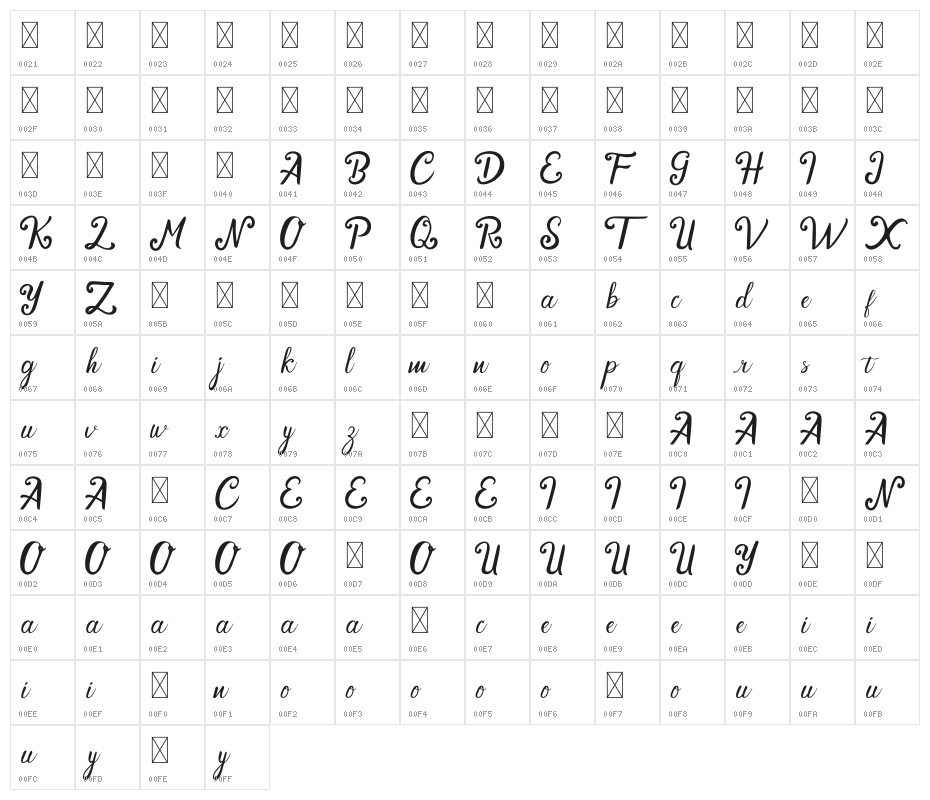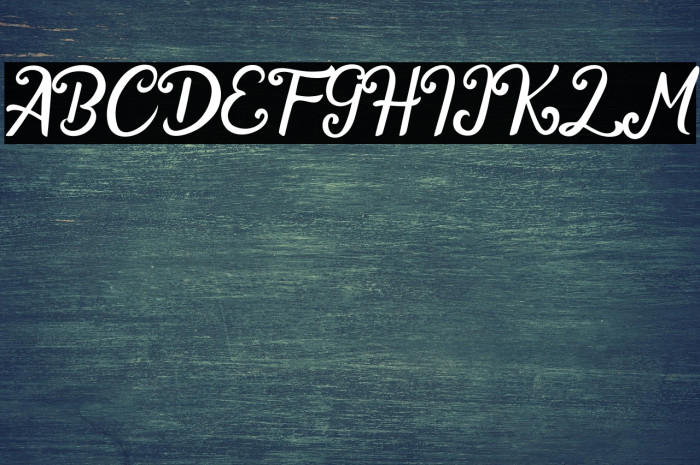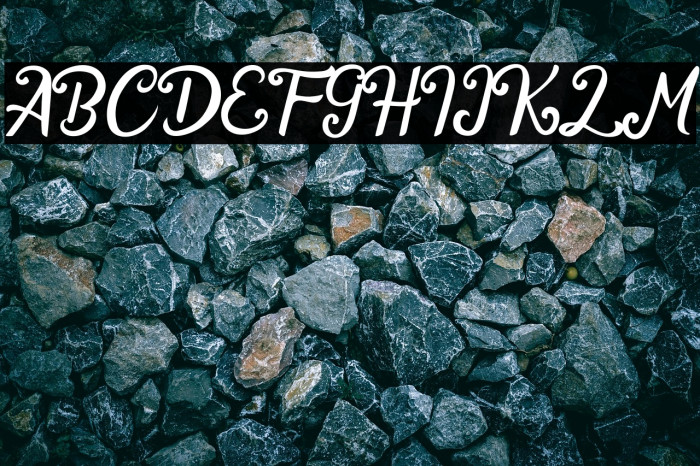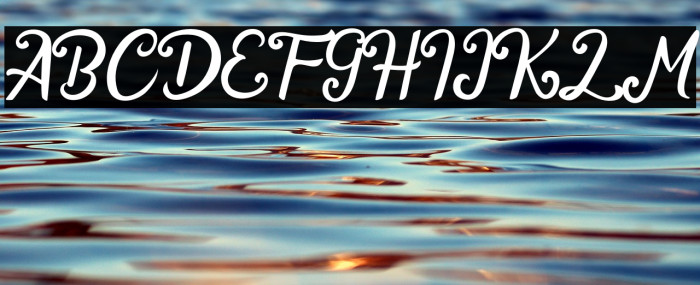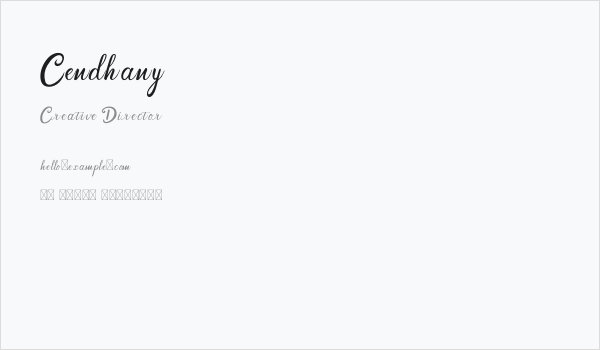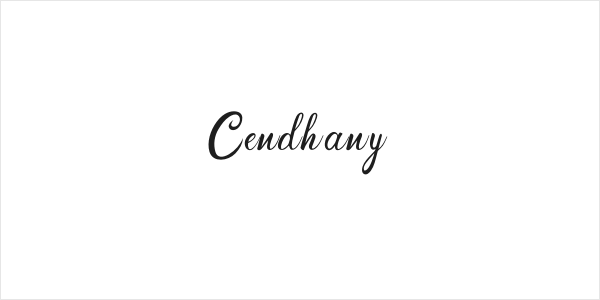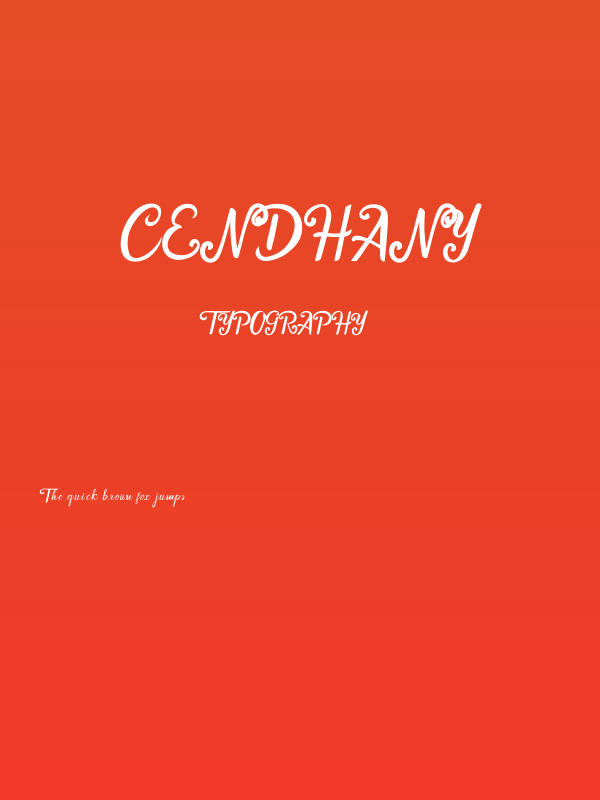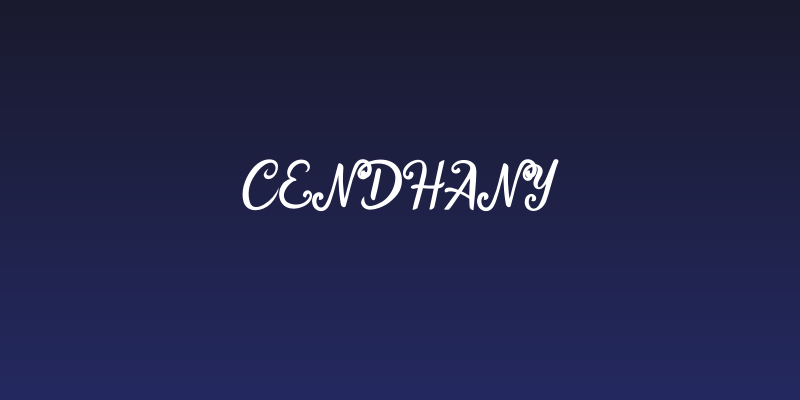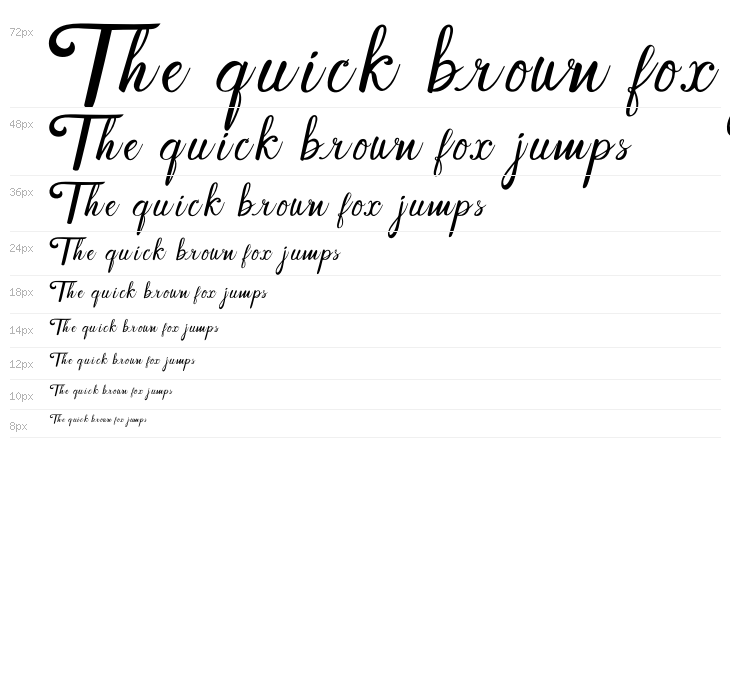
Cendhany Font
Cendhany Description
This font features a decorative script style with elegant, flowing curves and loops. The uppercase letters are characterized by their ornate swirls, giving a sense of sophistication and flair. The lowercase letters maintain a consistent script style, with smooth connections between characters, enhancing readability while preserving an artistic touch. The overall design is balanced, with moderate contrast in stroke thickness, providing a harmonious appearance. This font does not include numerical characters or special symbols, focusing solely on alphabetic characters.